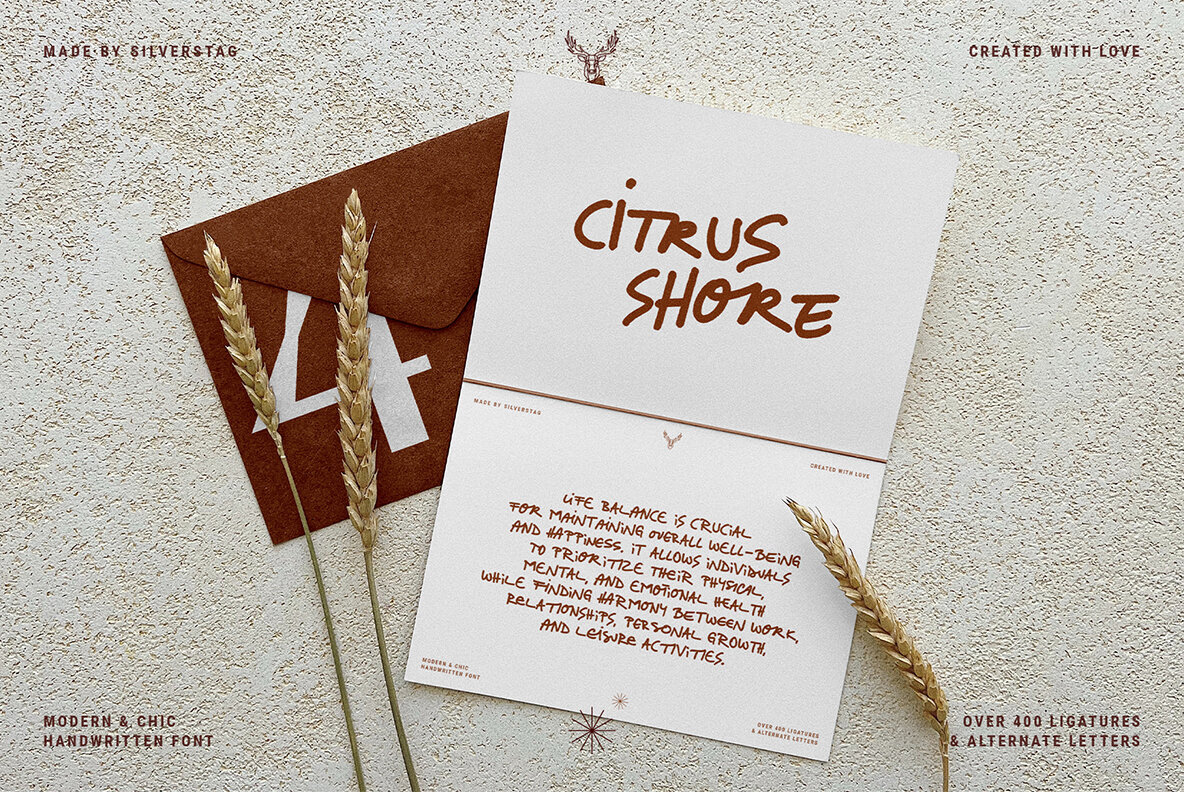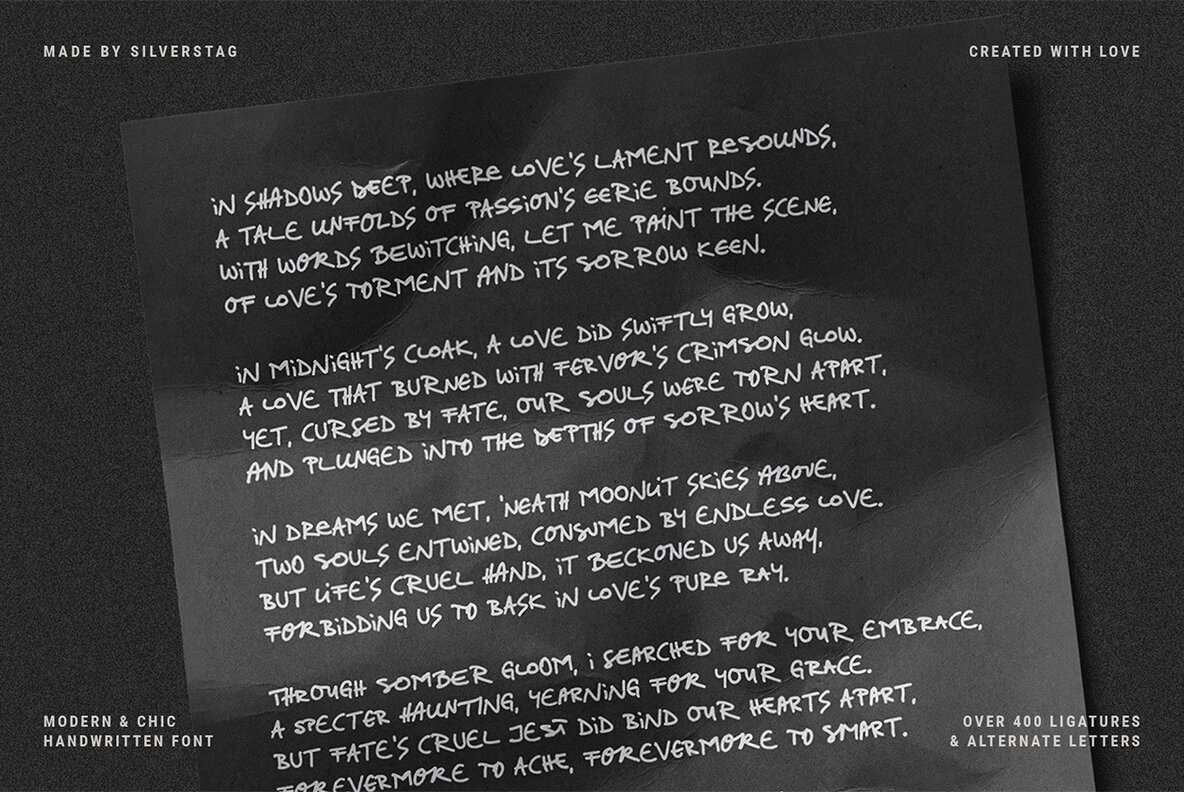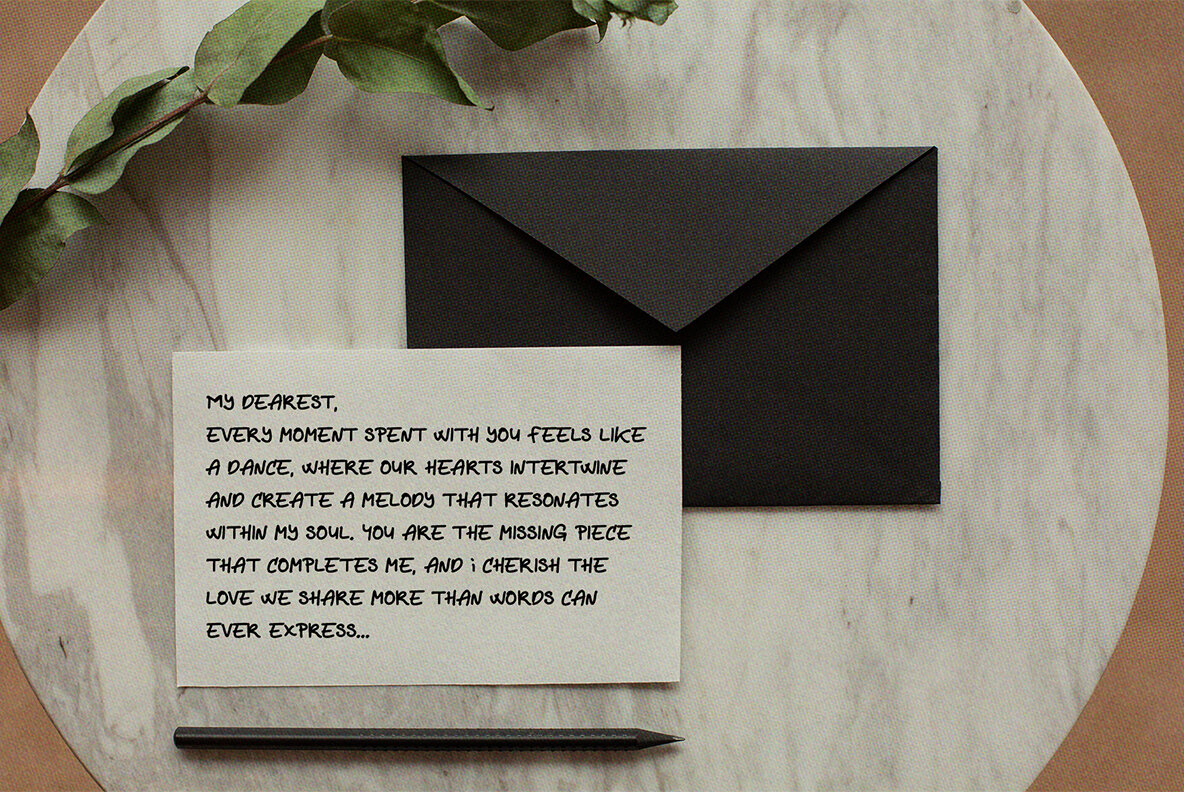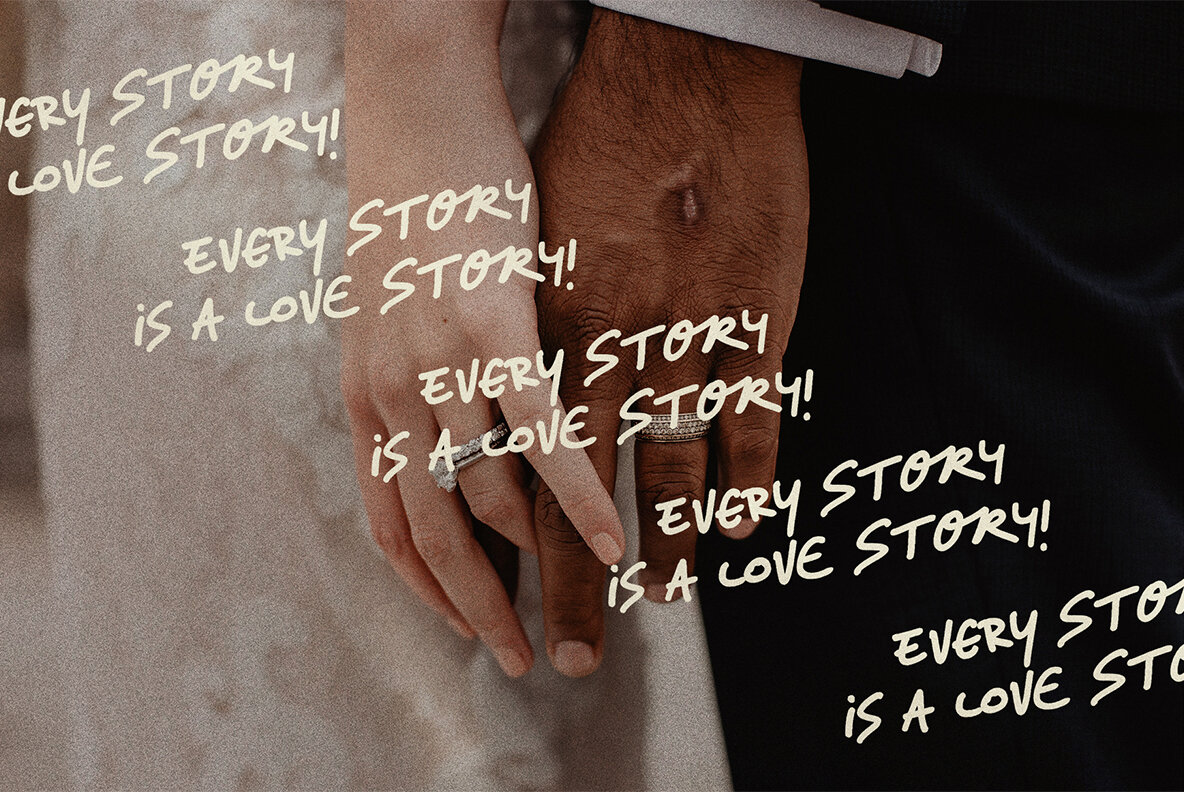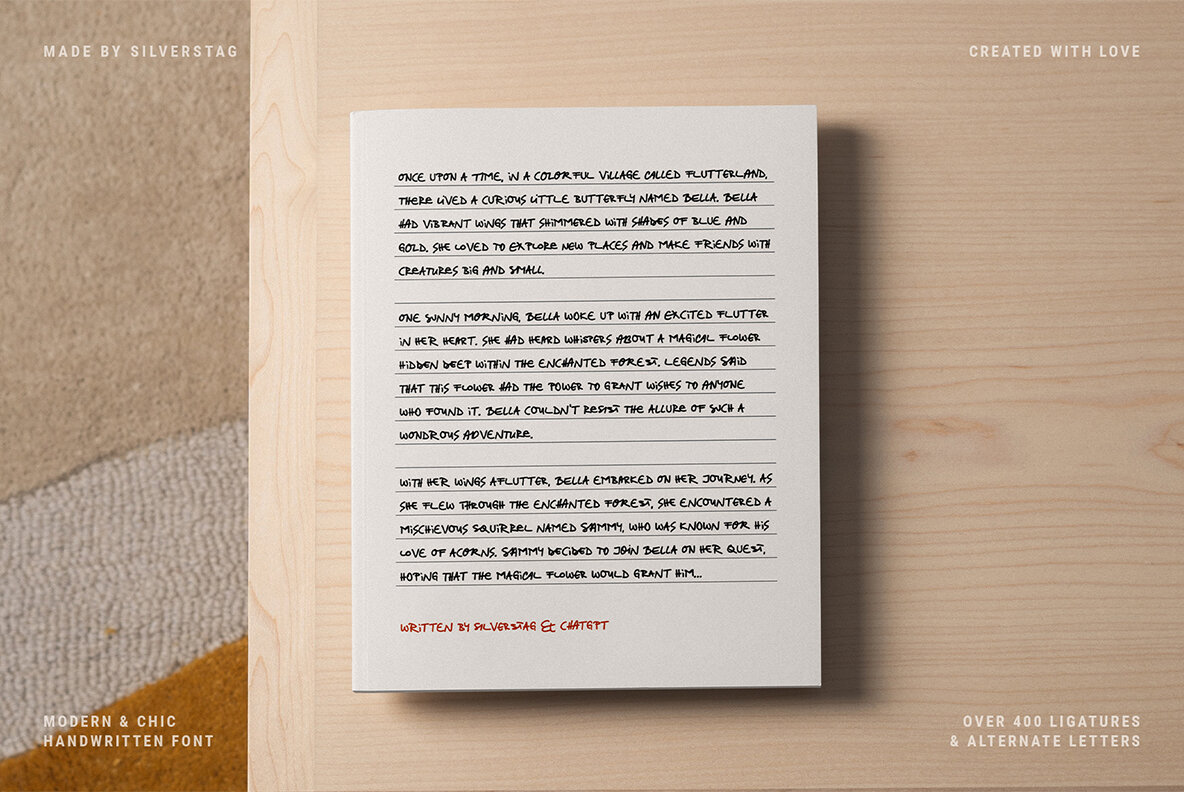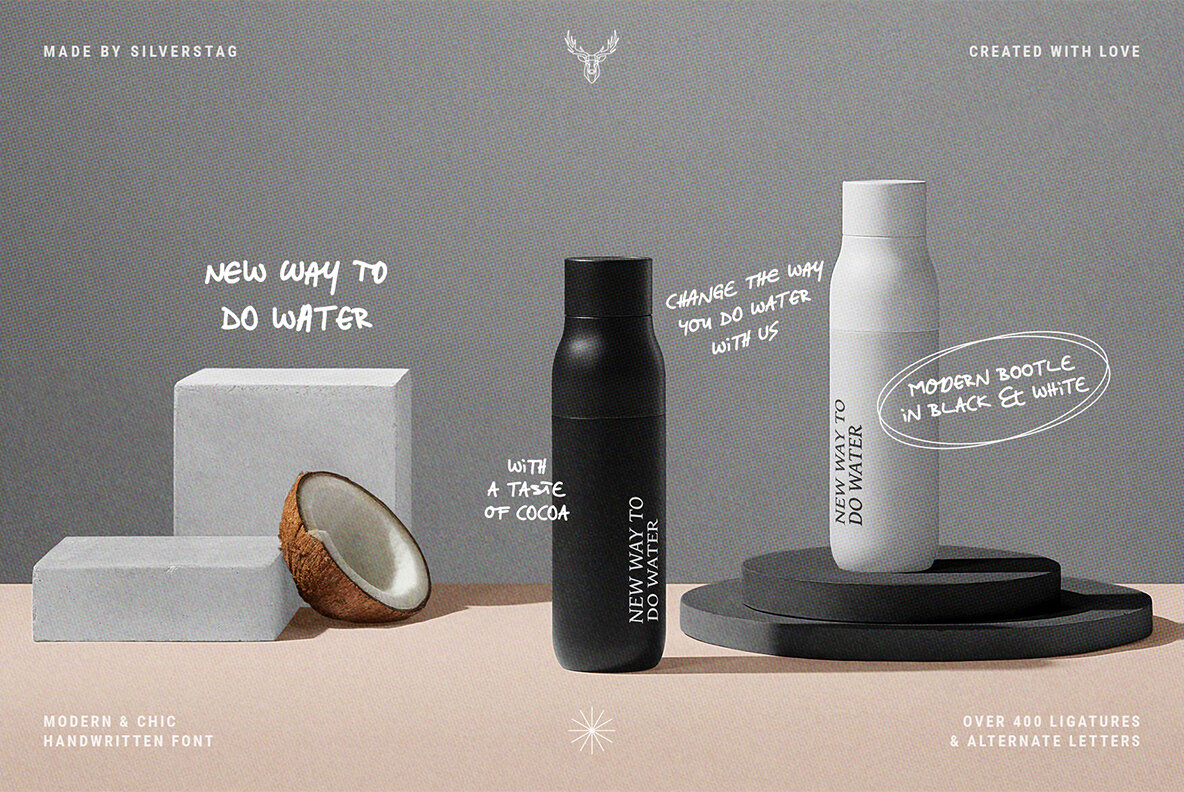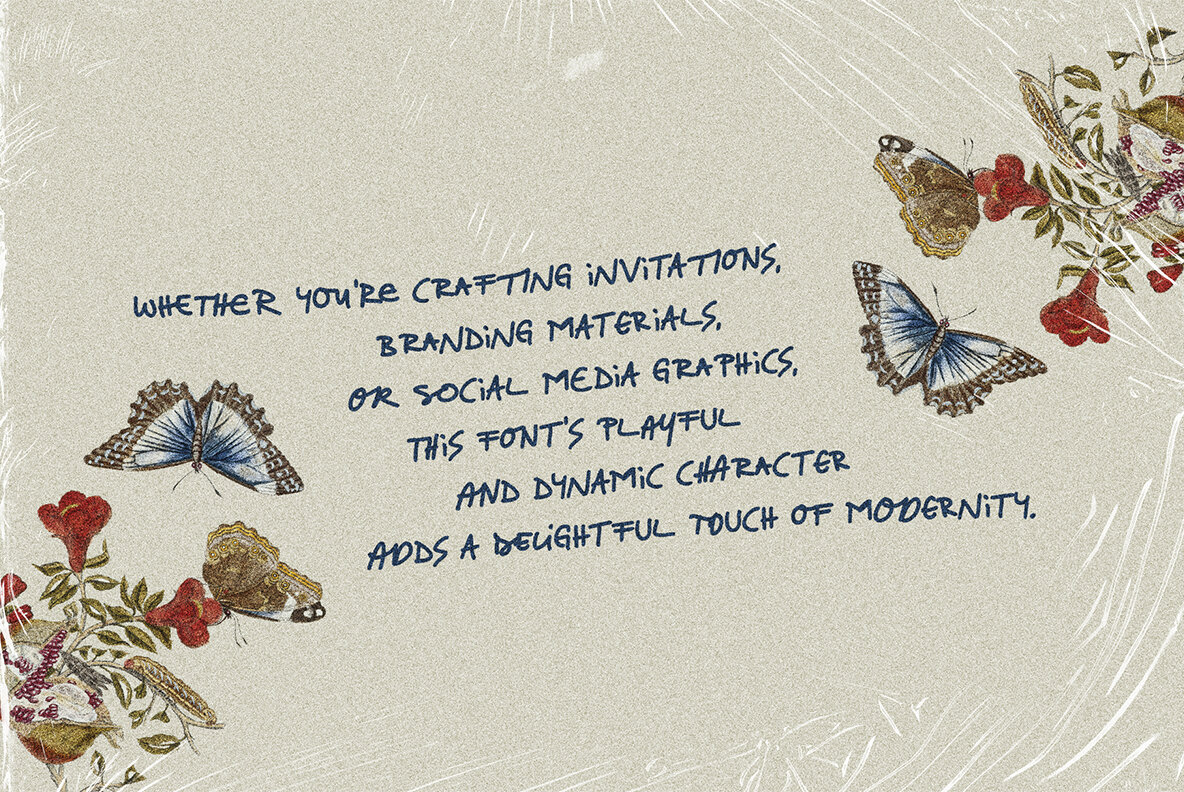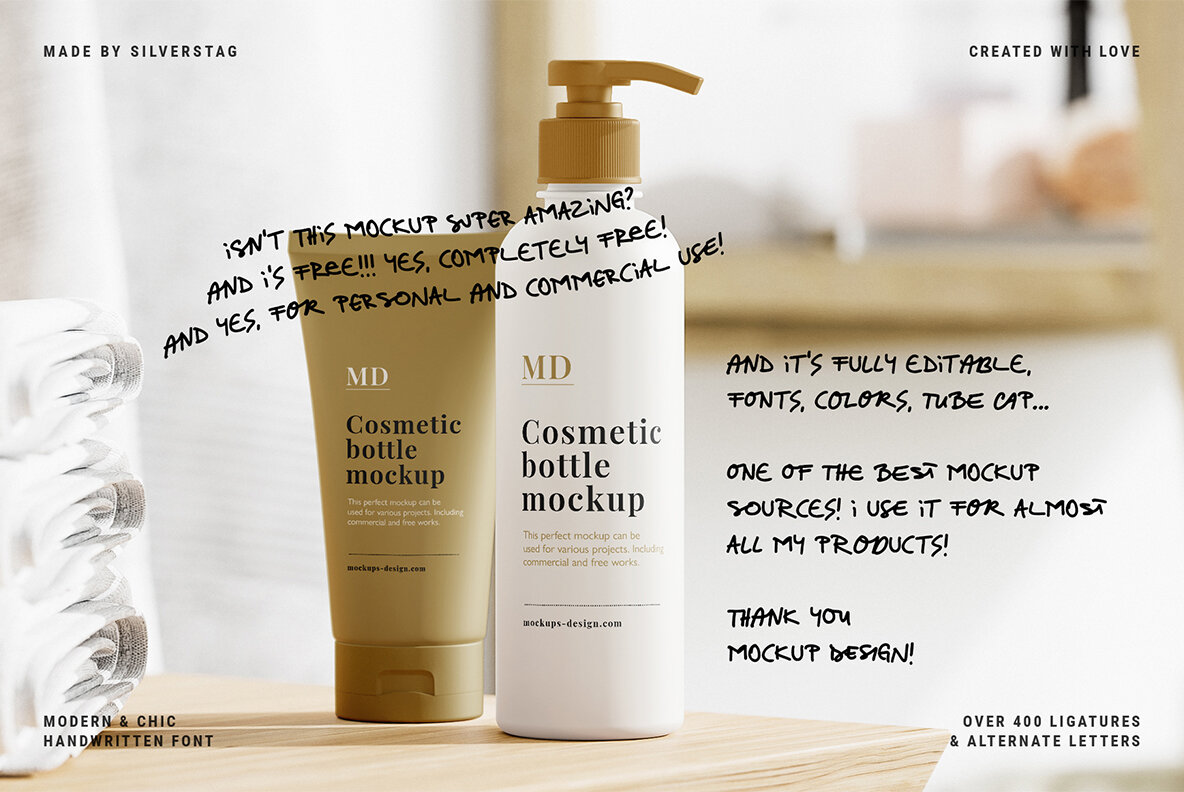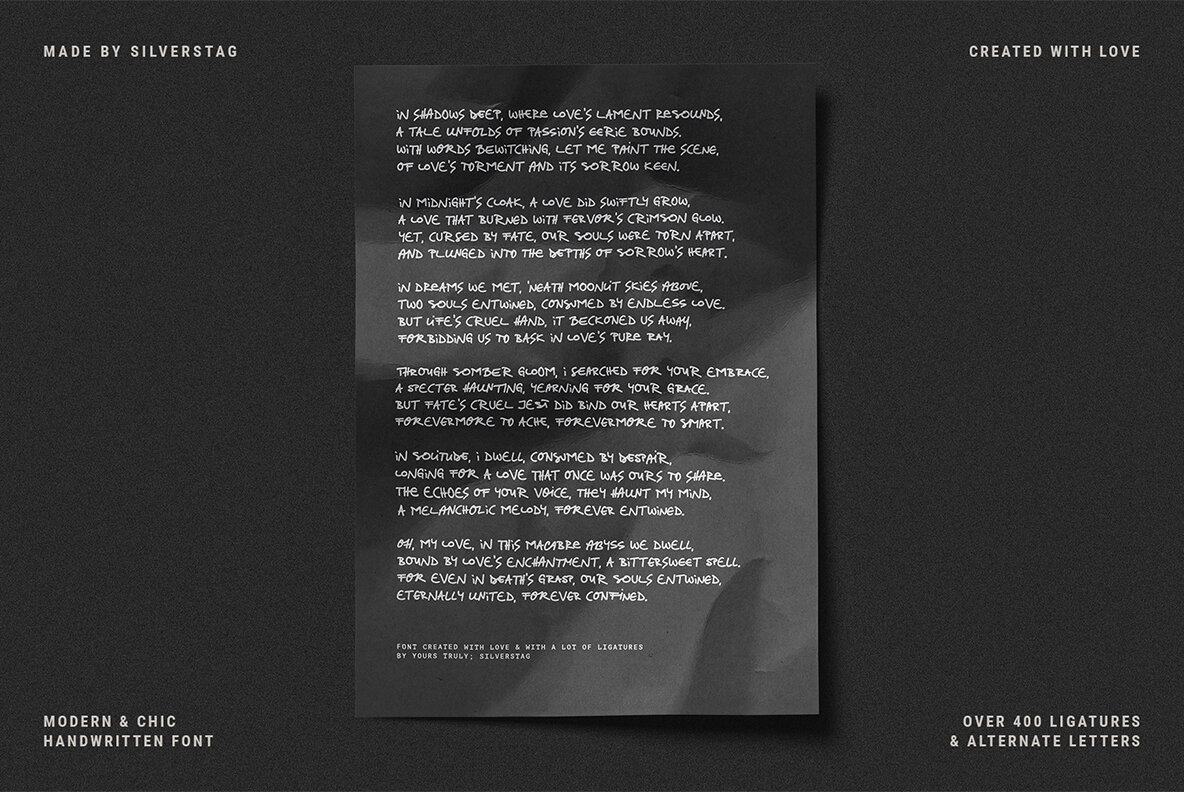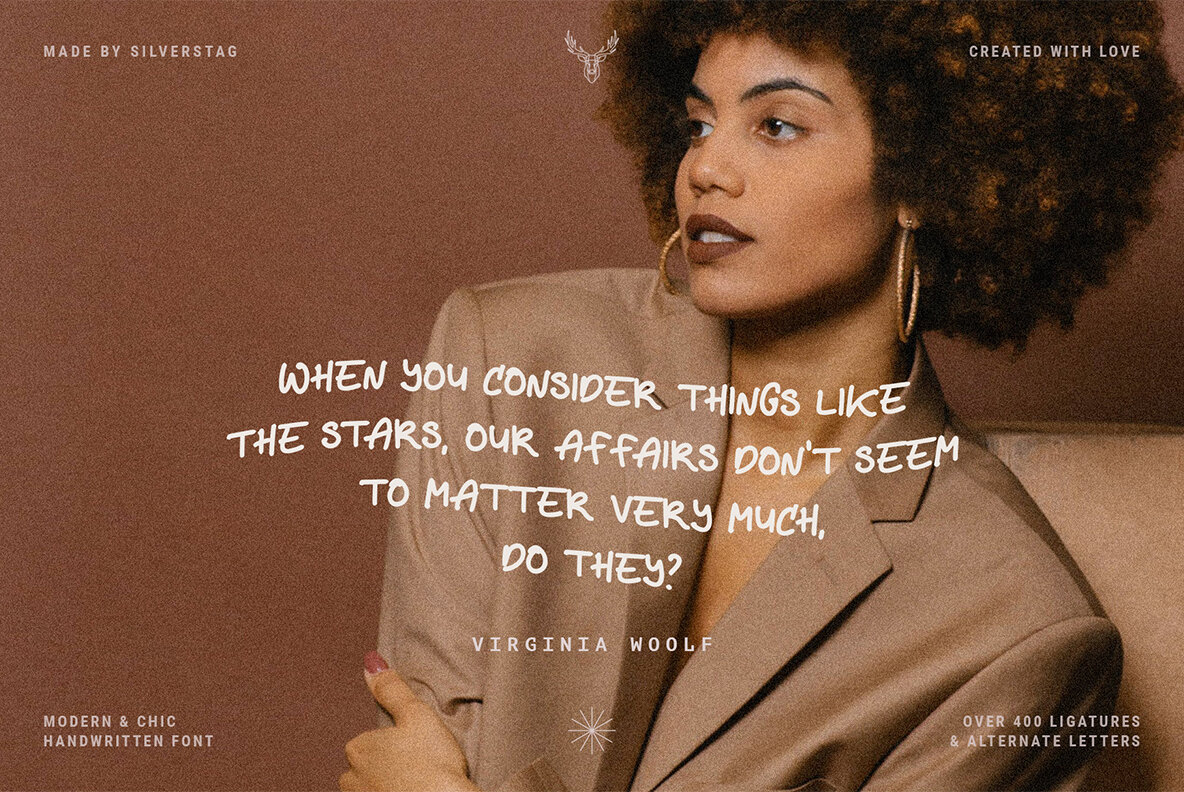
Citrus Shore Font
Citrus Shore
Introducing "Citrus Shore," a cool and chic modern handwritten marker font that embodies a refreshing and vibrant aesthetic. With its lively brush strokes and contemporary style, Citrus Shore brings a burst of energy to any design project. Whether you're creating invitations, branding materials, or social media graphics, this font's playful and dynamic character adds a delightful touch of modernity. Its versatility and undeniable charm make Citrus Shore the perfect choice for those seeking a trendy and captivating typeface that leaves a lasting impression. With its expressive and authentic appeal, Citrus Shore ensures flawless communication across borders. Supporting a wide range of languages, from English to Spanish, French, and more, this font guarantees your message is effectively conveyed. What sets Citrus Shore apart is its inclusion of over 400 alternate letters and ligatures, offering endless creative possibilities for stunning and original typography. From captivating logos to distinctive headlines, this font breaks free from the ordinary, infusing your designs with a touch of individuality. If you end up publishing your designs on Instagram, tag me - @silverstagco and I will make sure to showcase your design and work to my audience as well! Citrus Shore - Playful Marker Font Includes: